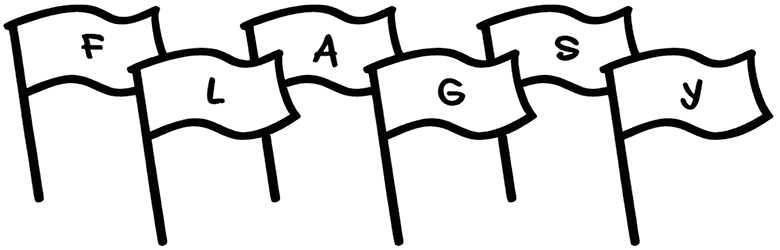
Flagsy Font
The Flagsy is a decorative font that has an eye-catching design. As its name reveals, the characters of this flag font are placed on flags that make it memorable; however, it does not support lowercase letters. The Flagsy font may be helpful in special situations such as advertisements, posters, and in other cases where this font may play a role.
This font only contains letters and numbers. No symbols or punctuation.
For flags all on the same level, just use the lowercase.
For bouncy flags, alternate between uppers and lowers.Use the less than < symbol before an uppercase character to start a word.
Use the greater than > symbol after an uppercase character at the end of a word.
To create bouncy numbers, use shift+ that number. So:
! = 1
@ = 2
# = 3
$ = 4
% = 5
^ = 6
& = 7
* = 8
( = 9
) = 0For a COMPLETE empty upper flag, use . period
For an empty lower flag use , commaFor a JOINING empty upper flag, use : colon
For a joining empty lower flag, use ; semicolon